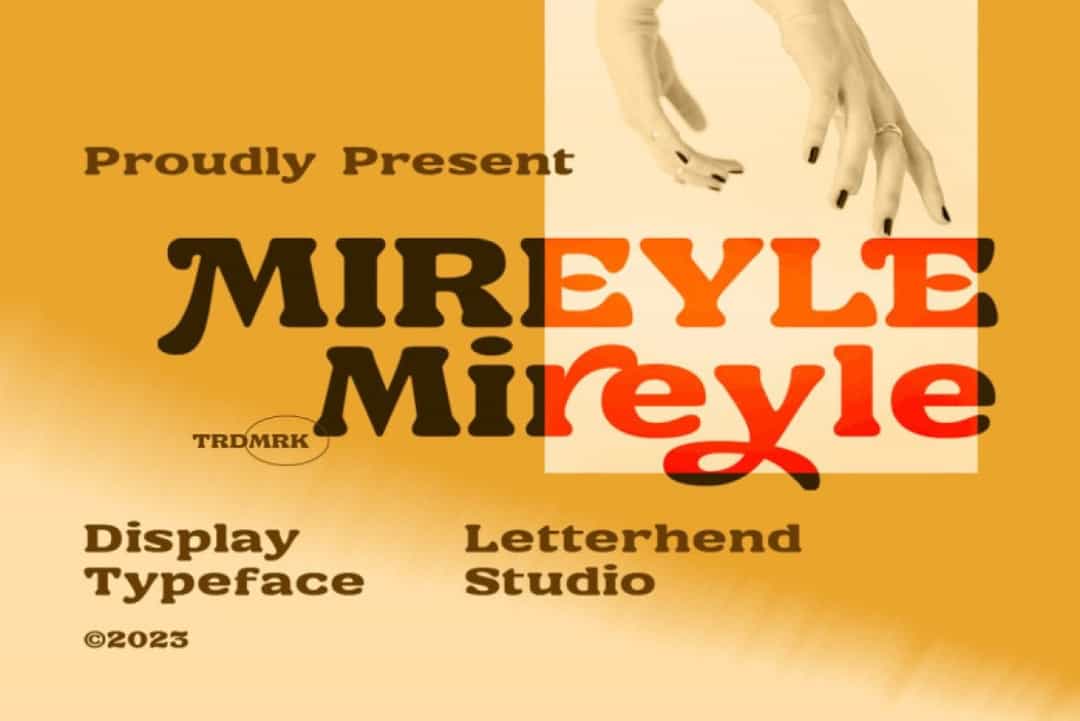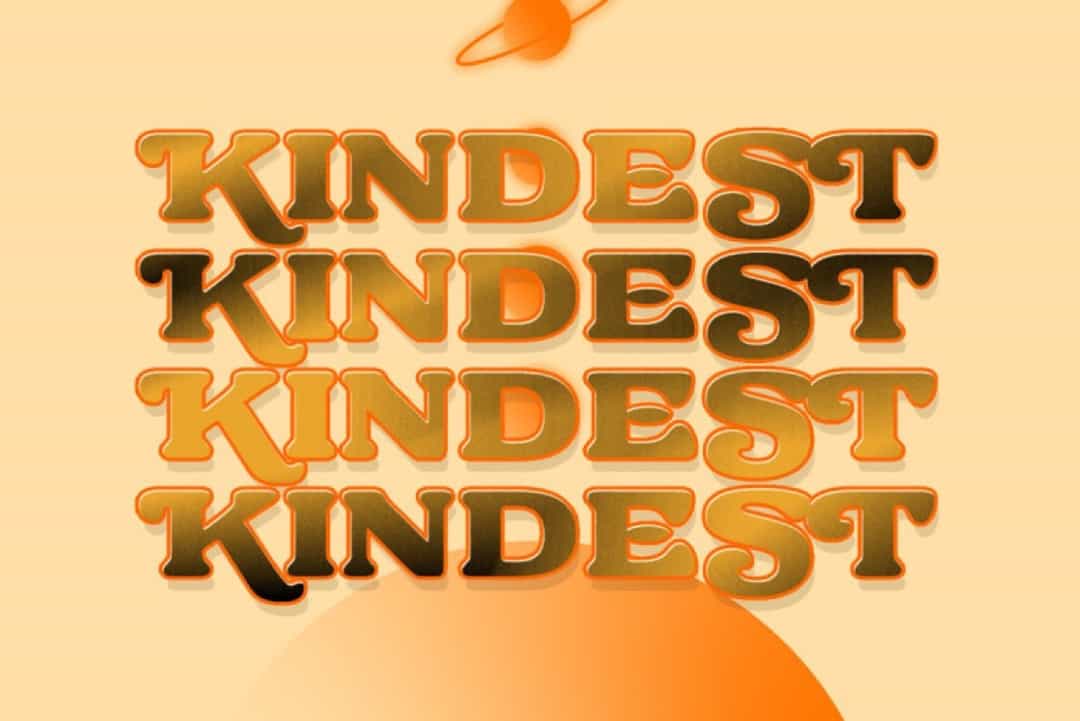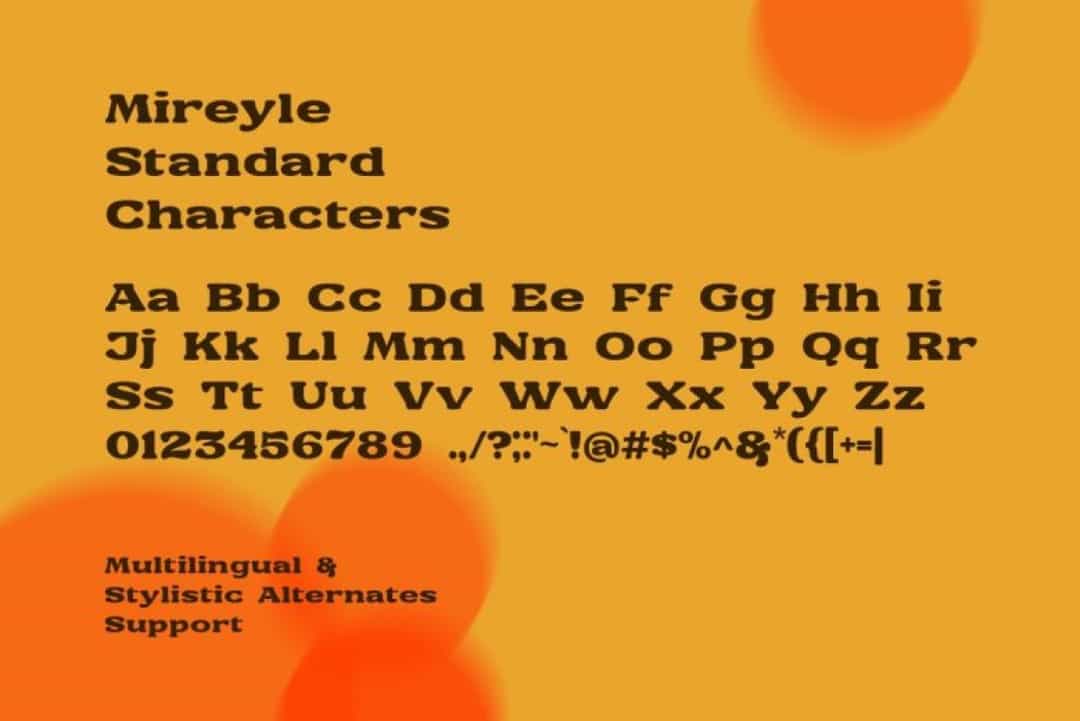
Mireyleis is an attractive serif-handletted Display typeface featuring an edge with a textured look. This bold font can be used for various design tasks, from invitations and posters to greeting card designs and logos – it provides the ideal solution whether working on children’s books or creating logos!